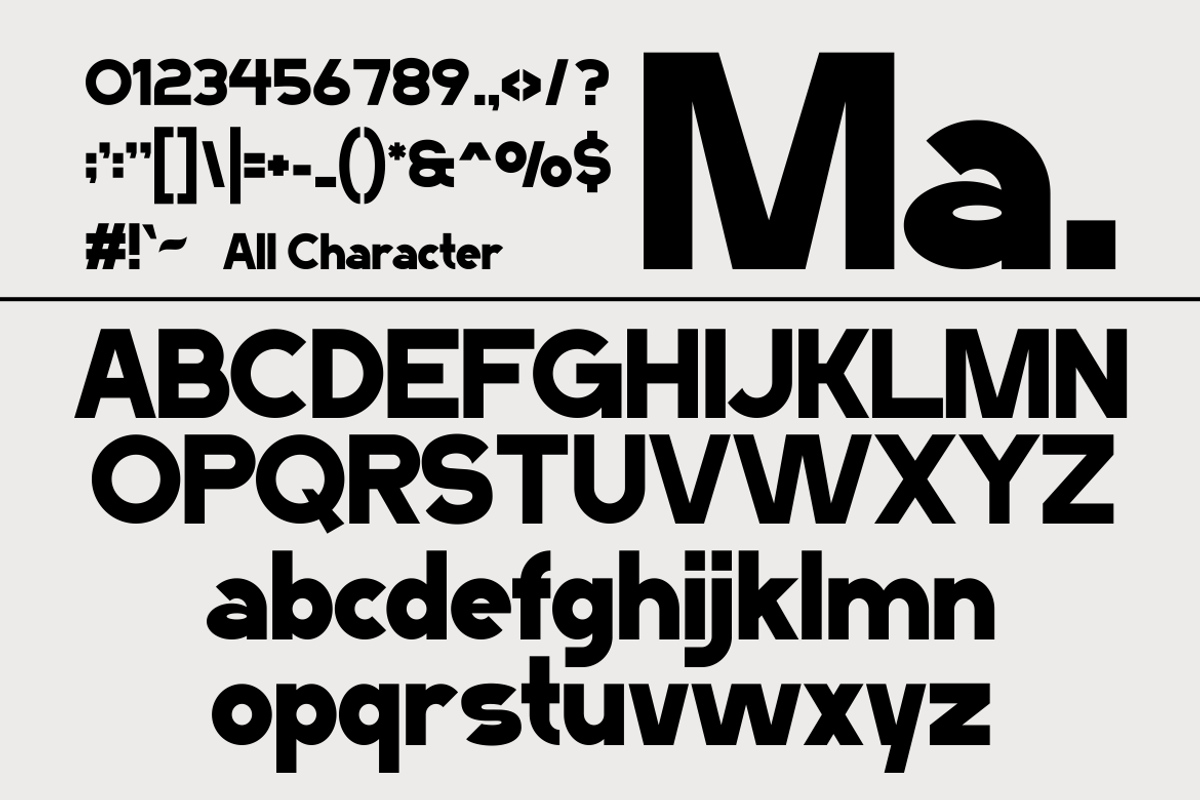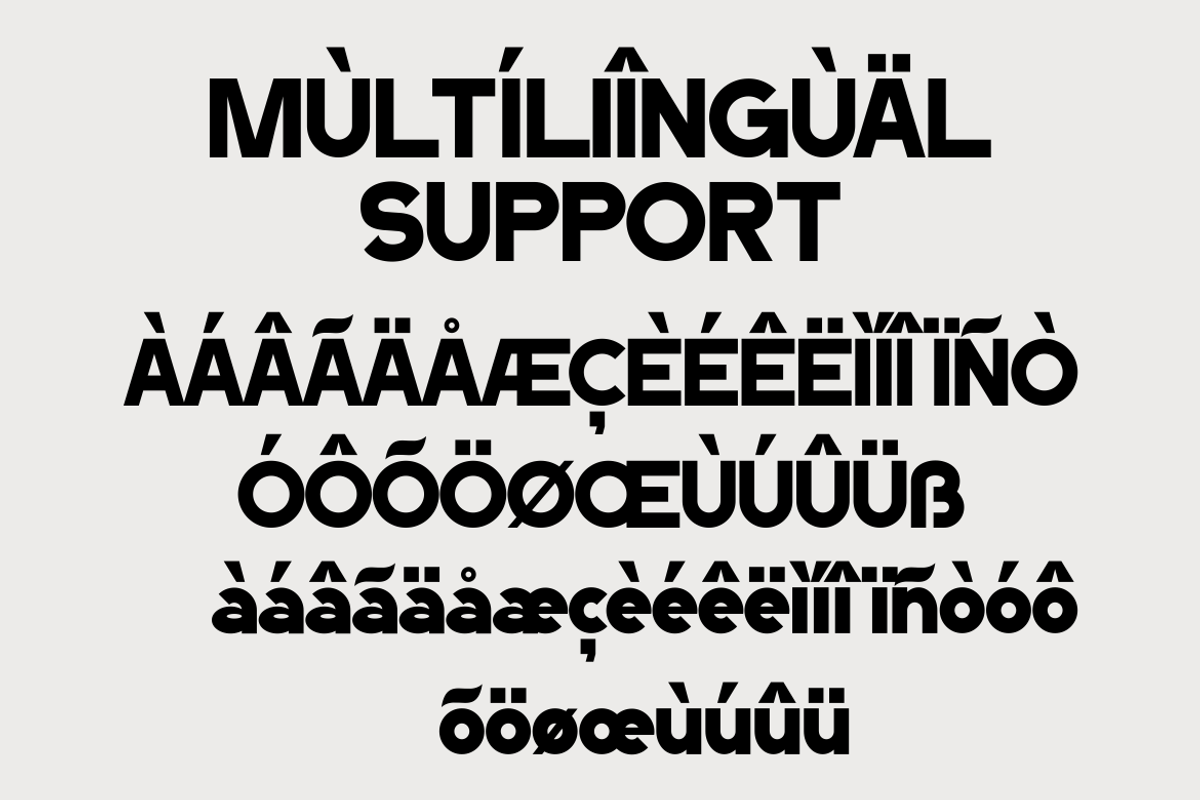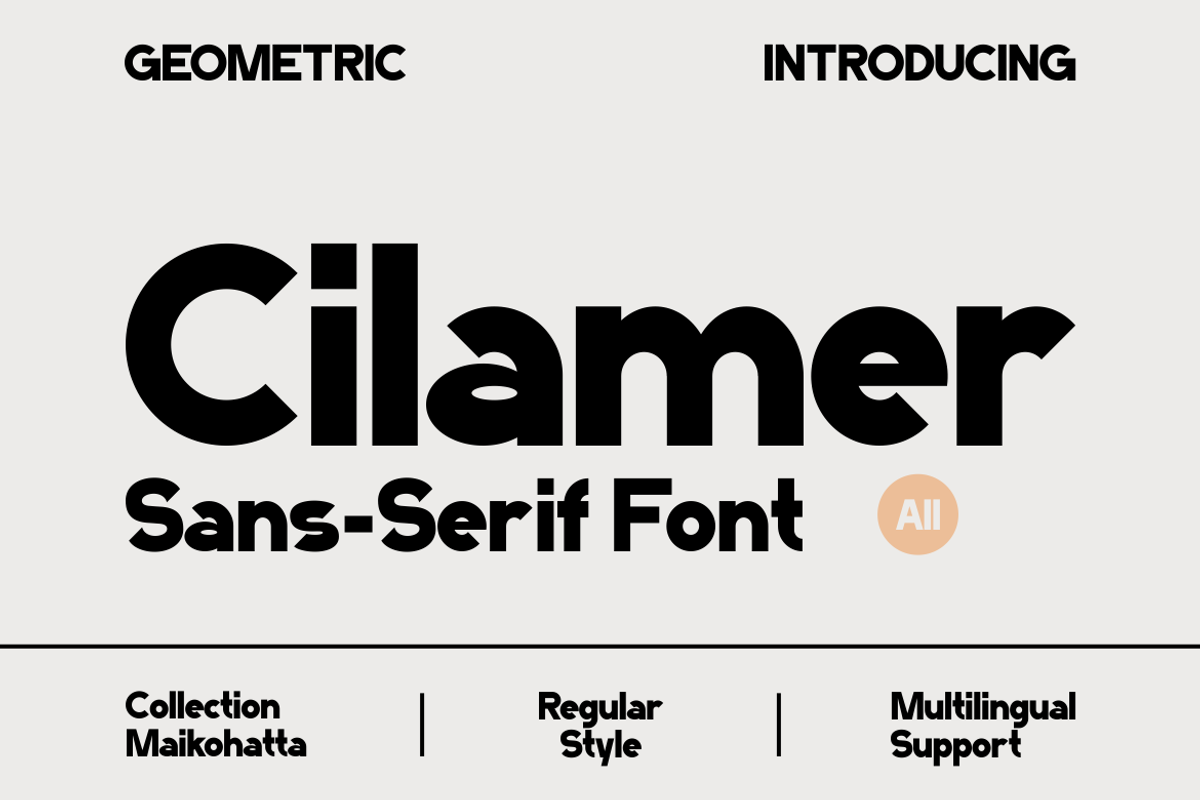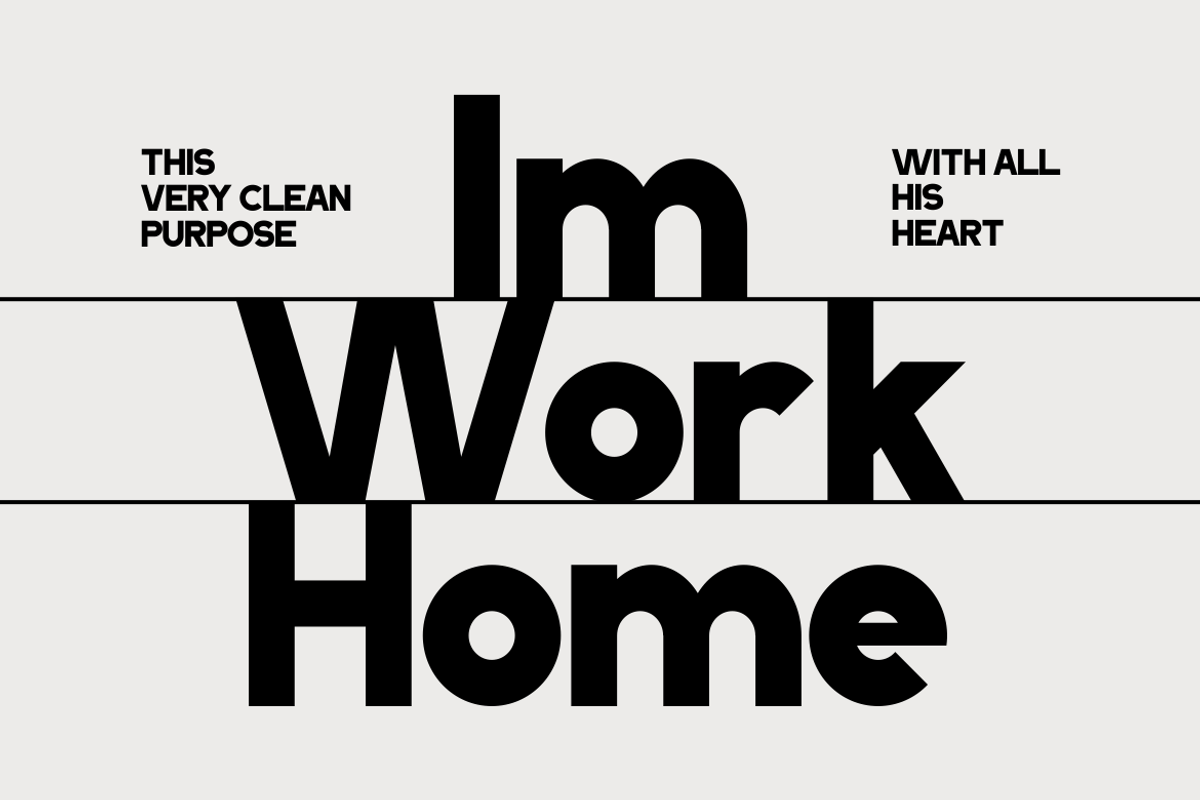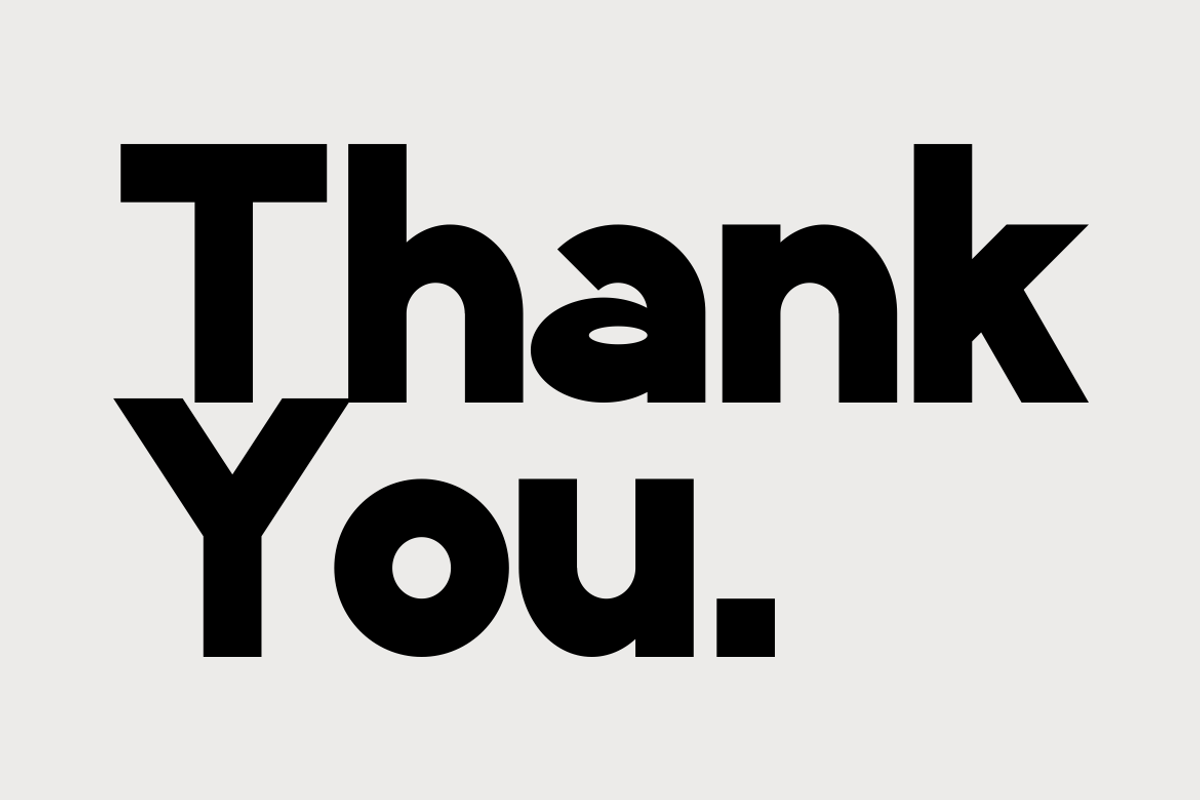
Cilamer - Modern Sans Font
Cilamer - Modern Sans Font is a bold and authentic display font. The font is suitable for any branding project like logo, template design, esport, and many more. outstanding in a wide range of contexts.